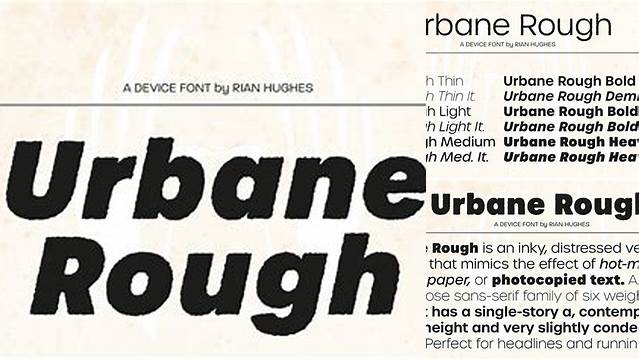
Hey guys! Ever been on the hunt for that perfect font that just screams bold, gritty, and unforgettable? Well, let me introduce you to the Urbane Rough Heavy font. It's like the cool rebel of the font world, and today, we're diving deep into where you can snag it for free and how to make the most of it. Get ready to unleash your inner font enthusiast!
What is Urbane Rough Heavy Font?
So, what exactly is the Urbane Rough Heavy font? Imagine a font that's been through a bit of a rough patch – in the best way possible. It’s got this distinctive, textured look that sets it apart from your typical clean-cut fonts. Think of it as the font equivalent of a leather jacket: edgy, stylish, and full of character. Urbane Rough Heavy falls into the display font category, meaning it’s best used for headlines, posters, logos, and anything that needs to grab attention. It’s not the kind of font you’d use for paragraphs of text (unless you're going for a very specific vibe), but for making a statement, it's absolutely perfect. Its weight and texture give it a strong presence, making it ideal for projects where you want to convey a sense of power, authenticity, or even a touch of vintage charm.
Using Urbane Rough Heavy in Graphic Design
Now that you've got Urbane Rough Heavy installed, let's talk about how to actually use it in your graphic design projects. This font is a real powerhouse, but like any tool, it's all about using it in the right way. Urbane Rough Heavy is a display font, which means it's best used for headlines, logos, posters, and other large-format designs. Its bold, textured appearance makes it a natural choice for projects where you want to make a strong statement. Try using it in a poster for a rock concert, a logo for a coffee shop, or a website header for a vintage clothing store. Just be careful not to overuse it. Because it's such a distinctive font, it can quickly become overwhelming if it's used too much. Use it sparingly, and let it shine where it really counts.
Combining Urbane Rough Heavy with Other Fonts
One of the keys to great typography is knowing how to combine different fonts to create a visually appealing and balanced design. Urbane Rough Heavy is a bit of a statement font, so it's important to pair it with something that complements it without overpowering it. A good approach is to combine it with a clean, simple sans-serif font for body text. Think something like Open Sans, Lato, or Roboto. These fonts are easy to read and won't compete with the boldness of Urbane Rough Heavy. Another option is to pair it with a classic serif font like Times New Roman or Georgia for a more traditional look. Experiment with different combinations to see what works best for your project, but remember, the goal is to create a harmonious and balanced design.
Urbane Rough Heavy for Logo Design
If you're working on a logo design, Urbane Rough Heavy can be a fantastic choice, especially if you're aiming for a bold, rugged, or vintage aesthetic. Its distinctive texture and weight make it stand out from the crowd, helping your logo make a lasting impression. When using it for logo design, keep in mind the overall brand identity you're trying to create. Urbane Rough Heavy works well for brands that want to convey a sense of strength, authenticity, or edginess. Think coffee shops, breweries, motorcycle clubs, or outdoor adventure companies. To create a memorable logo, try combining Urbane Rough Heavy with a simple graphic element or icon. Keep the design clean and uncluttered, and make sure the font is legible at different sizes. With a little creativity, you can create a logo that's both eye-catching and effective.
Creating a Vintage Look with Urbane Rough Heavy
Want to give your designs a touch of vintage charm? Urbane Rough Heavy is your secret weapon. Its textured appearance and bold weight evoke the look and feel of old-fashioned signage and advertising. To create a vintage look, try pairing Urbane Rough Heavy with other vintage design elements, such as distressed textures, retro color palettes, and classic illustrations. Use it for headlines, posters, and logos to give your designs an authentic, old-school feel. Experiment with different font sizes and letter spacing to achieve the desired effect. You can also try adding subtle shadows or outlines to the font to make it stand out even more. With a little creativity, you can transport your audience back in time with your vintage-inspired designs.
Urbane Rough Heavy Font: A Conclusion